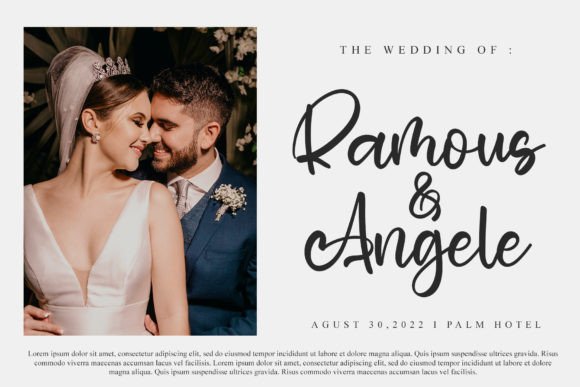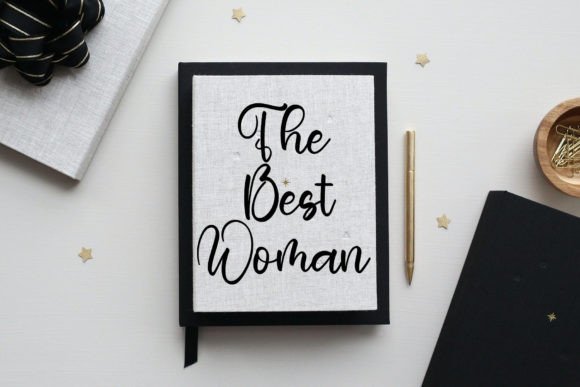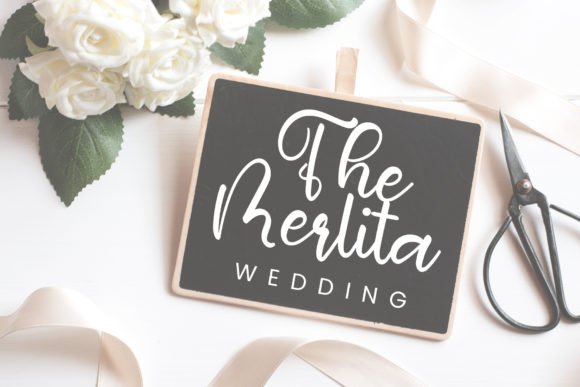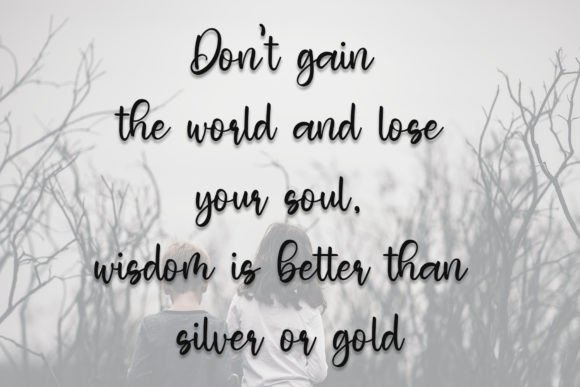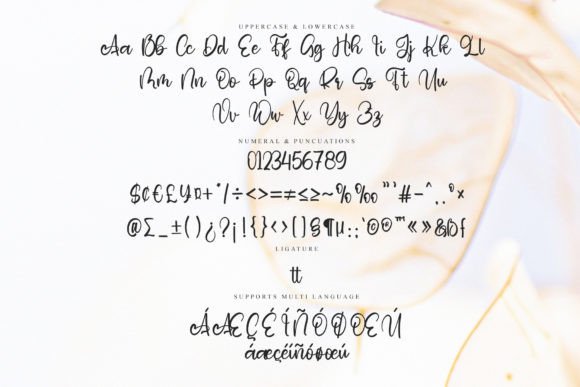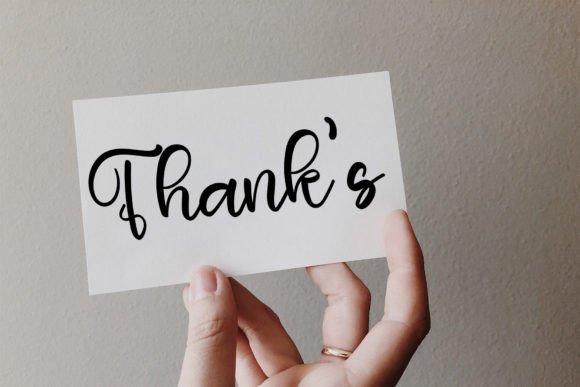
Rating Font
Rating is a playful and stylish handwritten font that exudes a youthful spirit, making it a versatile choice for a wide range of projects. Whether you’re working on professional designs such as branding, labels, websites, and business cards, or more casual projects like packaging, posters, flyers, quotes, social media posts, invitations, special occasions cards, and beyond, Rating brings a dynamic and engaging quality to the table.
The playful nature of Rating adds a sense of energy and creativity to your designs, making it well-suited for projects that aim to capture a youthful and vibrant audience. Its stylish handwriting evokes a modern and trendy feel, making it equally suitable for professional and casual contexts.
For professional-looking projects, Rating lends a touch of uniqueness and personality, enhancing the overall branding or business identity. The font’s adaptability shines through in casual designs, where it effortlessly infuses a lively and stylish vibe.
Whether you’re aiming for a polished and corporate aesthetic or a more relaxed and informal atmosphere, Rating caters to both ends of the spectrum with its versatile and playful design. Its application extends to a wide array of creative projects, showcasing its ability to enhance various design contexts.
In summary, Rating is more than just a font; it’s a design tool that brings a playful and stylish flair to your projects. Embrace its youthful spirit and let it add a dynamic touch to your professional and casual designs alike, making it a go-to choice for a broad range of creative applications.